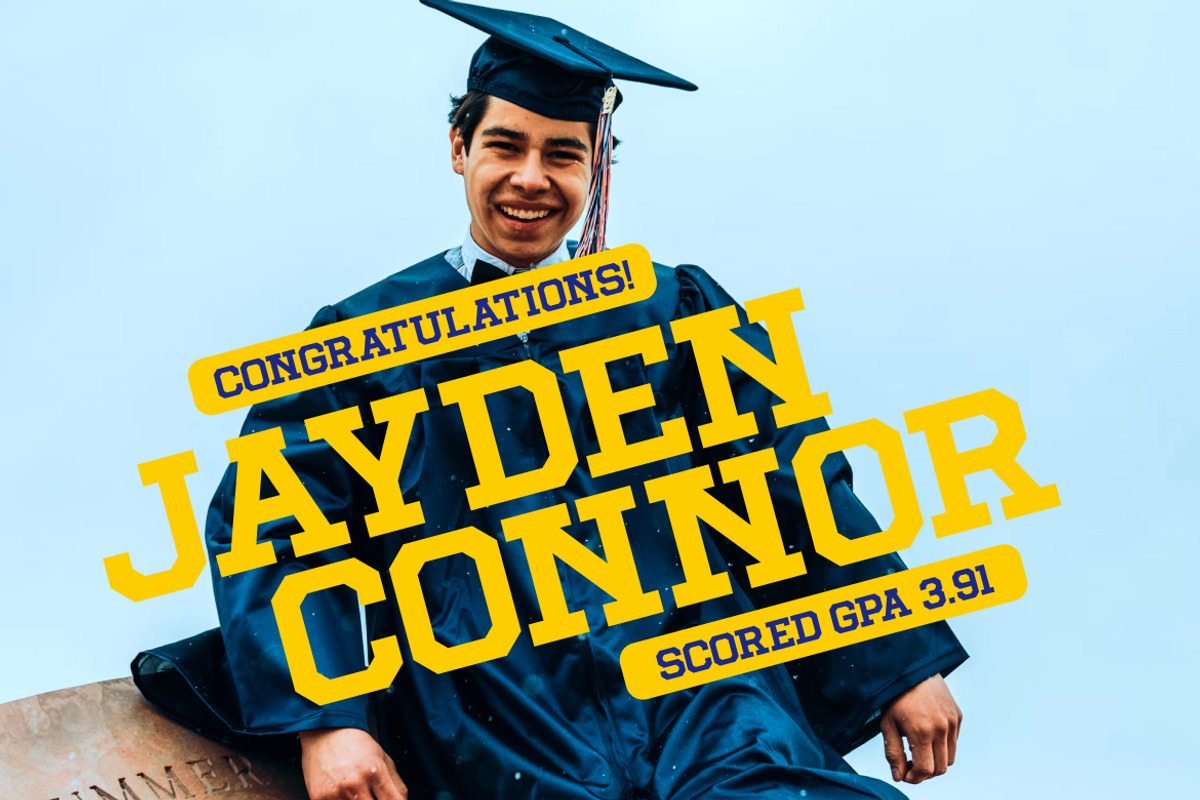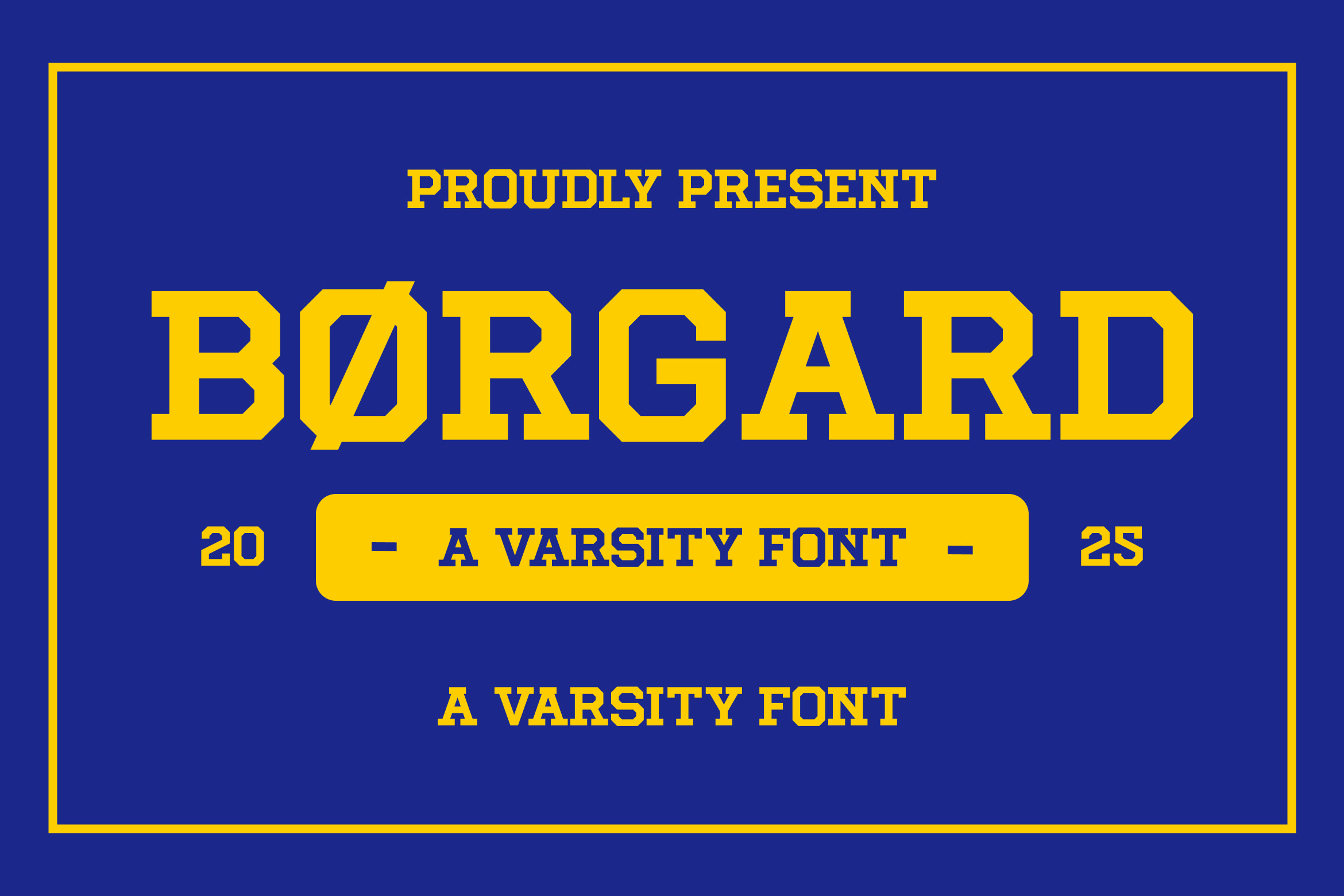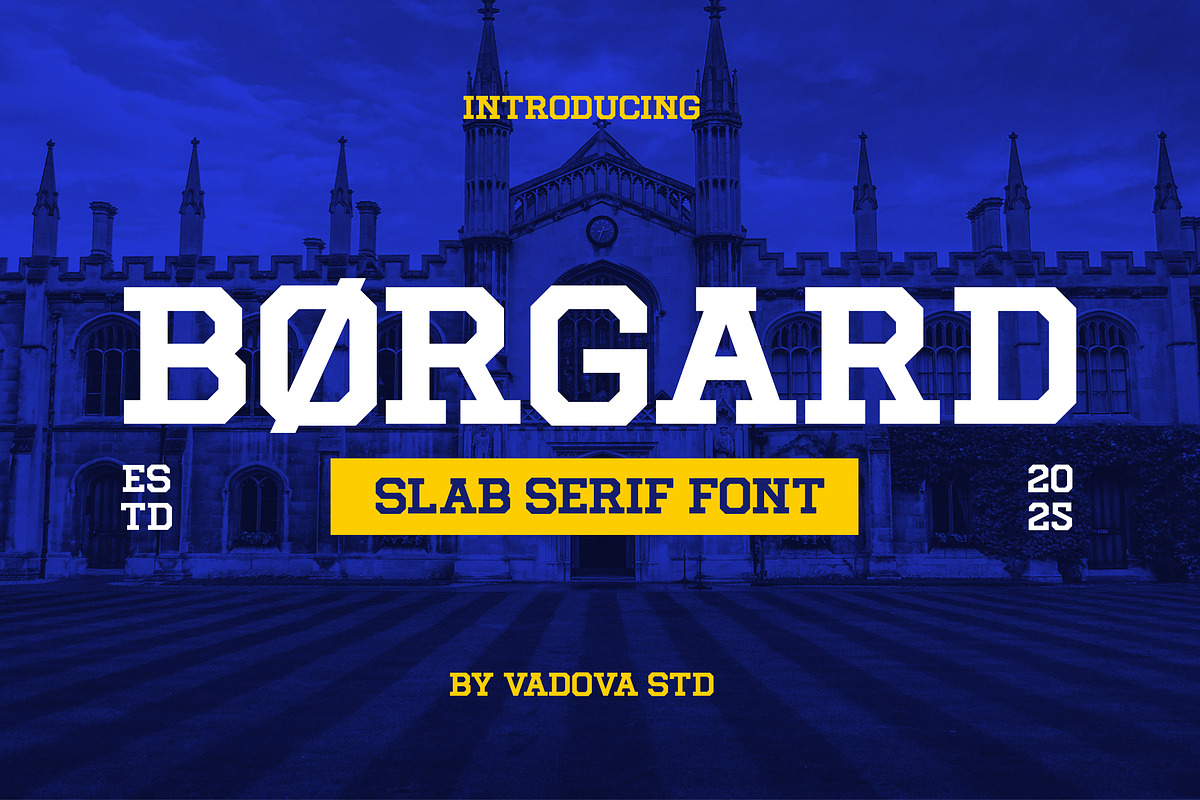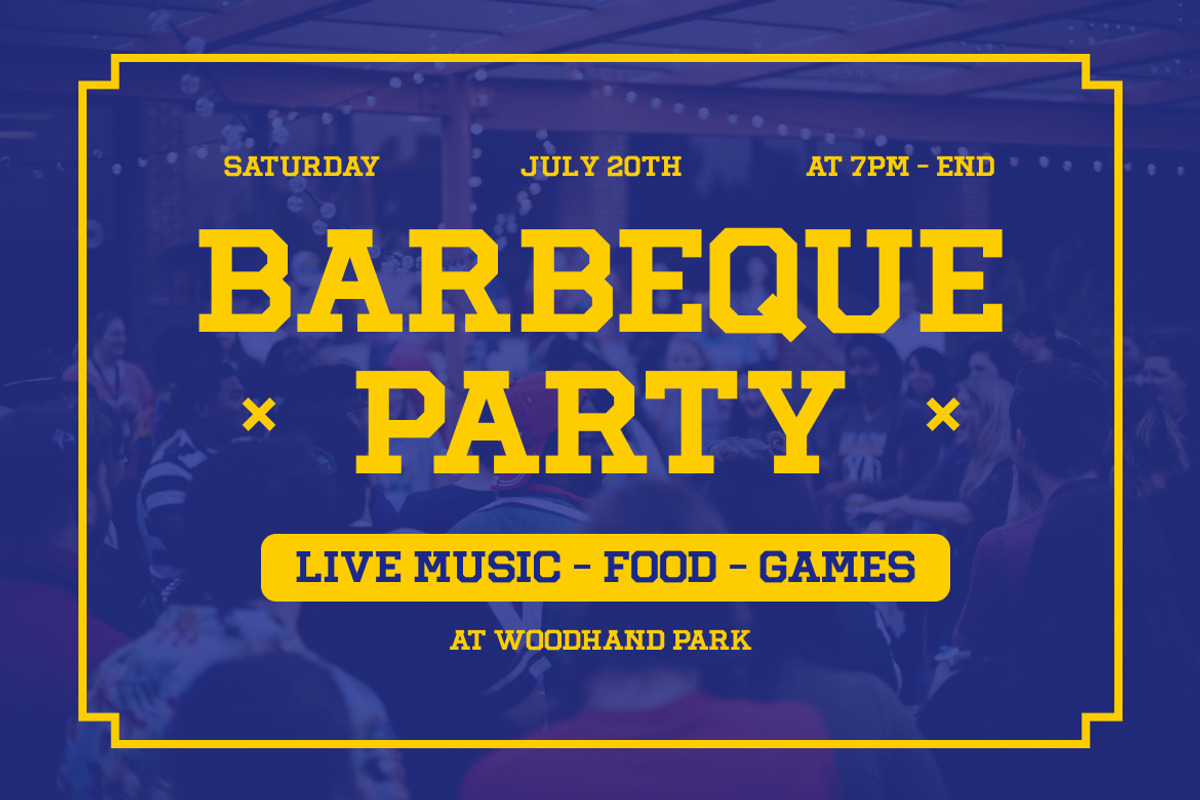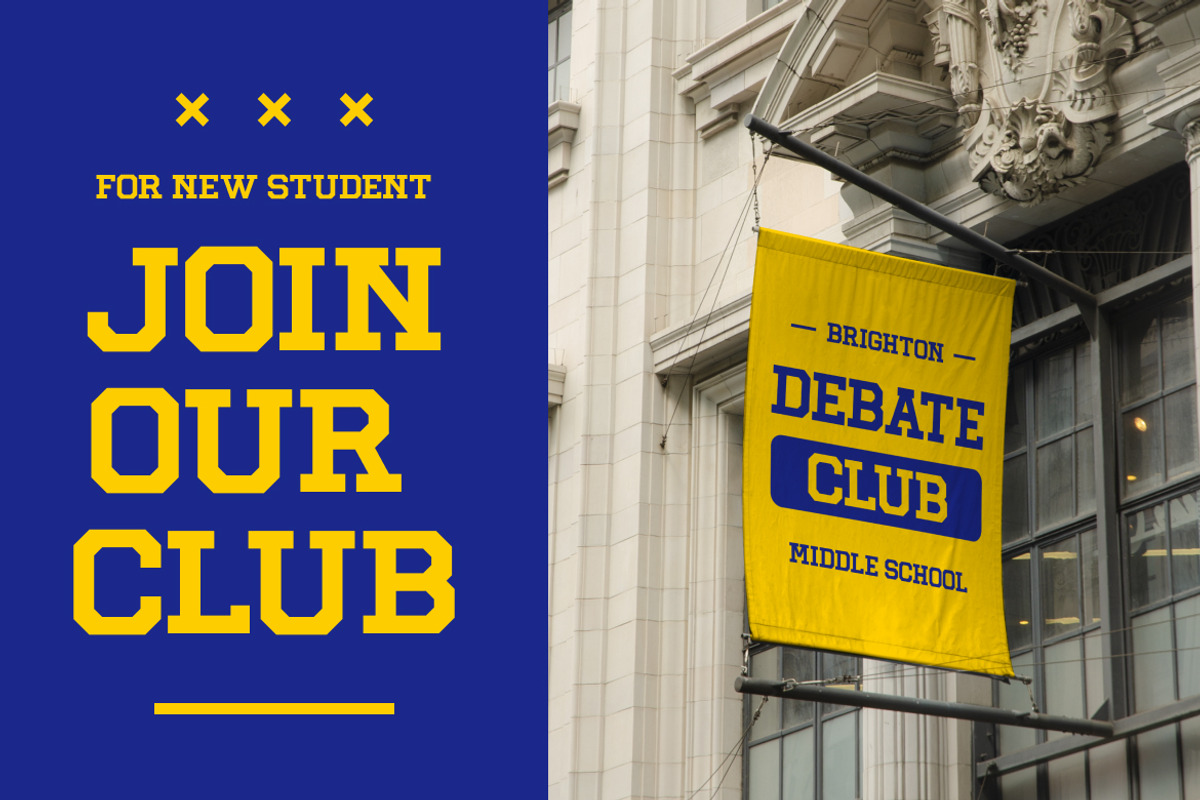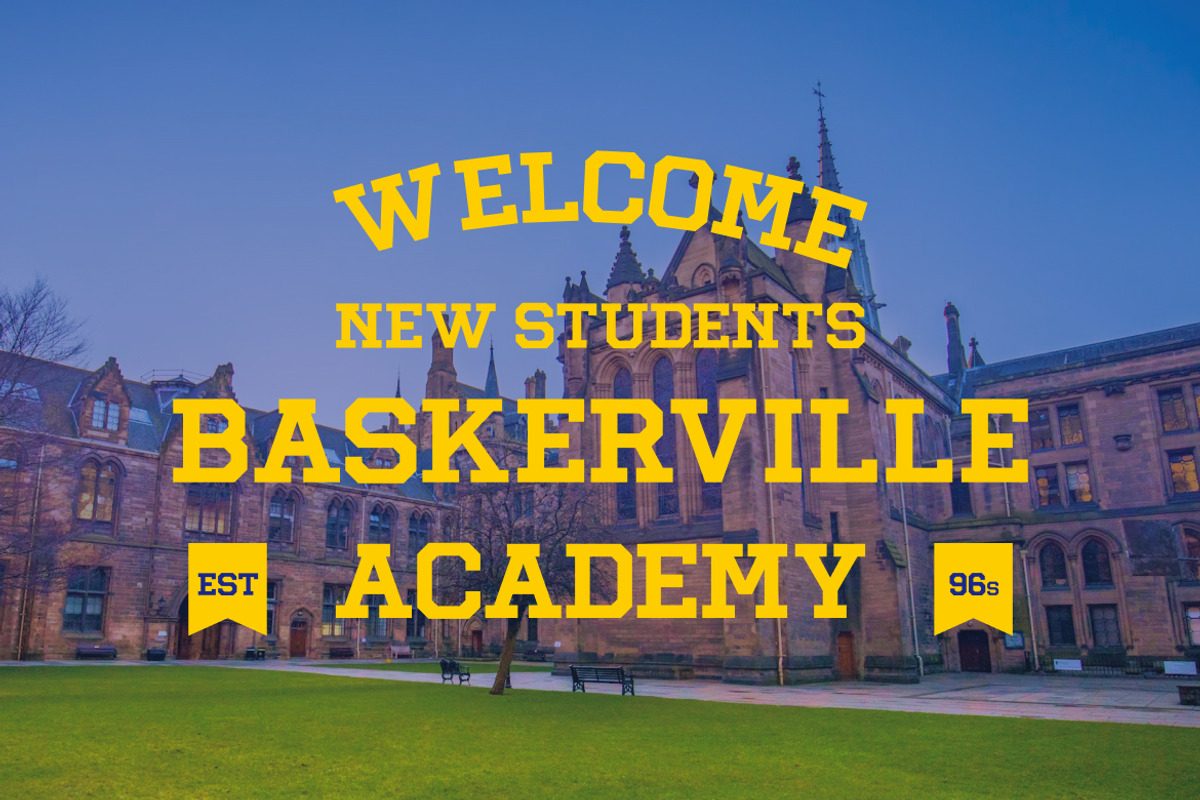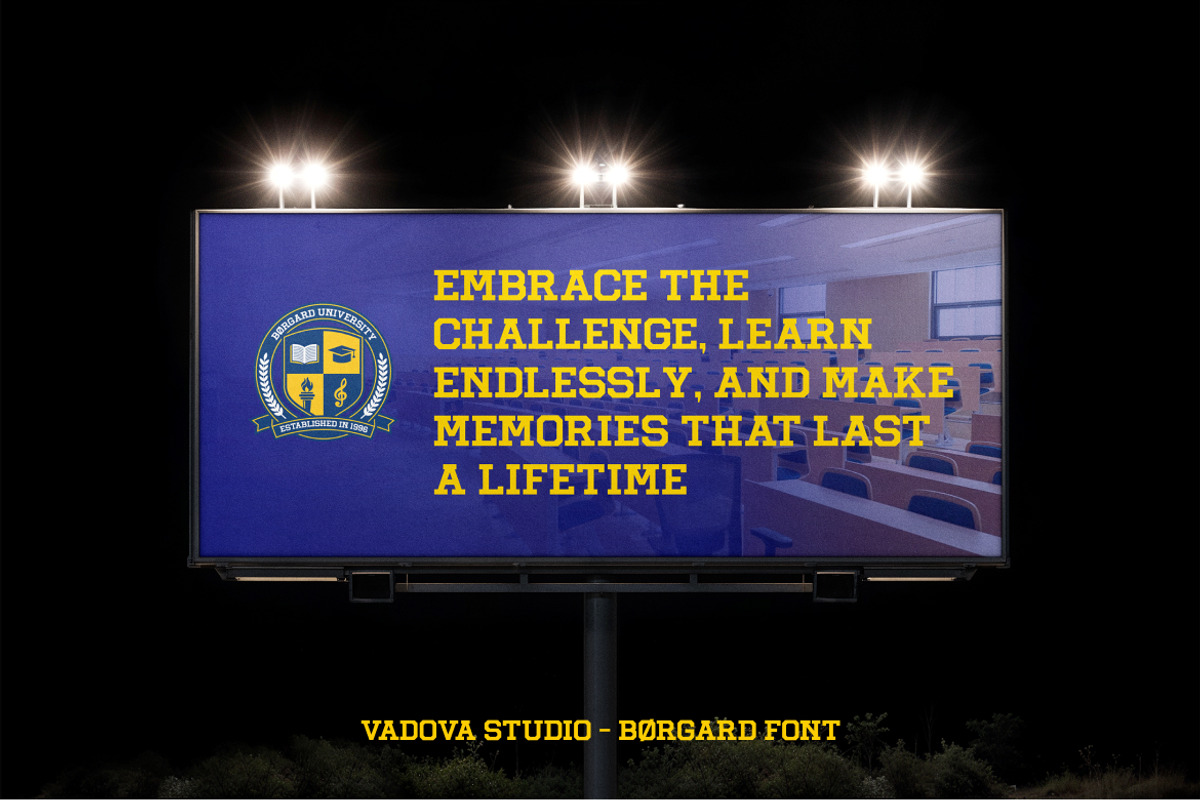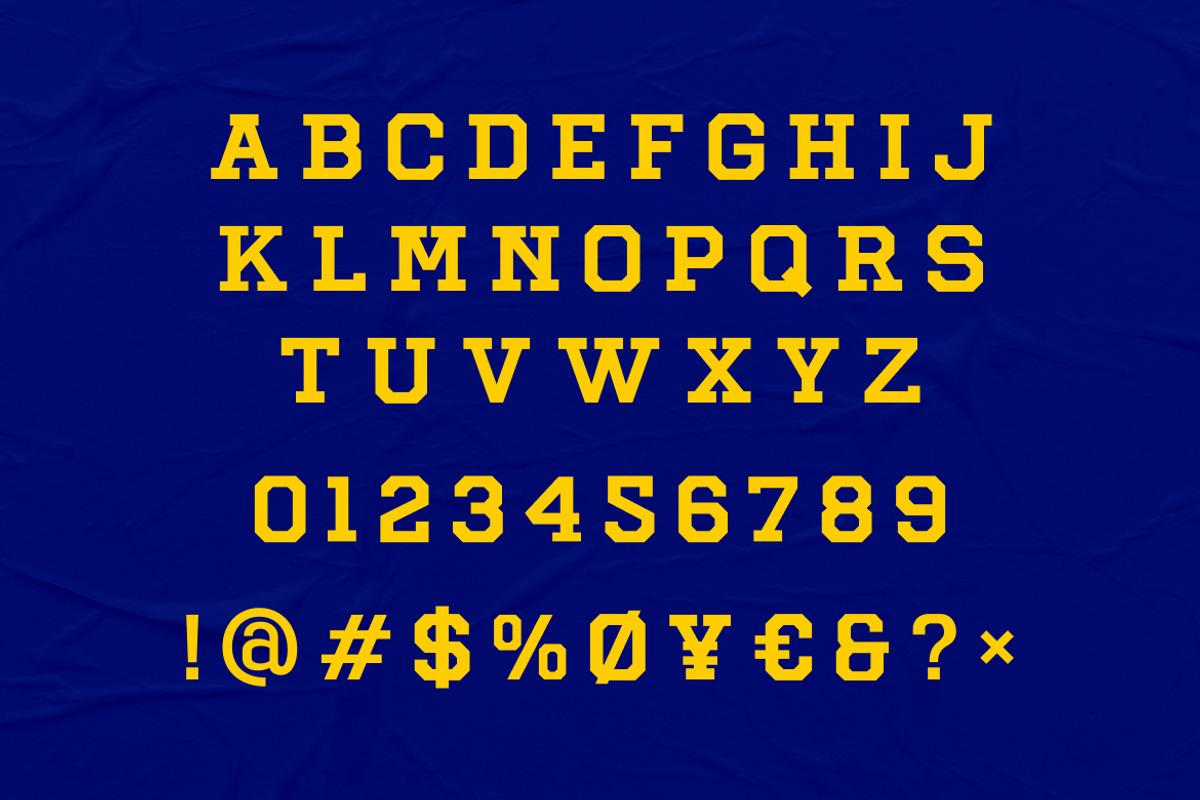
Borgard – Varsity Slab Serif Font
Borgard is a bold varsity typeface inspired by classic collegiate lettering. With its strong block shapes, slab serifs, and athletic character, Borgard brings the unmistakable spirit of team pride and school tradition. Perfect for sports jerseys, campus posters, event flyers, and athletic branding, this font delivers confidence and impact in every letter.
Why Choose Borgard:
Authentic varsity style with bold block serifs
Retro collegiate energy for sports and academic themes
High visibility perfect for jerseys and posters
Versatile across apparel, branding, and digital design
College & varsity sports logos
Jerseys & team uniforms
Posters, banners & campus events
Athletic apparel & merchandise
Retro-style branding projects
E-sports & gaming team identities
Classic varsity/college style font
Bold and confident block letters
Retro sporty look with modern usability
Strong readability in large displays
Ideal for team spirit & athletic pride
Celebrate the tradition of sportsmanship and school pride with Borgard, a varsity typeface that combines retro heritage and modern strength.